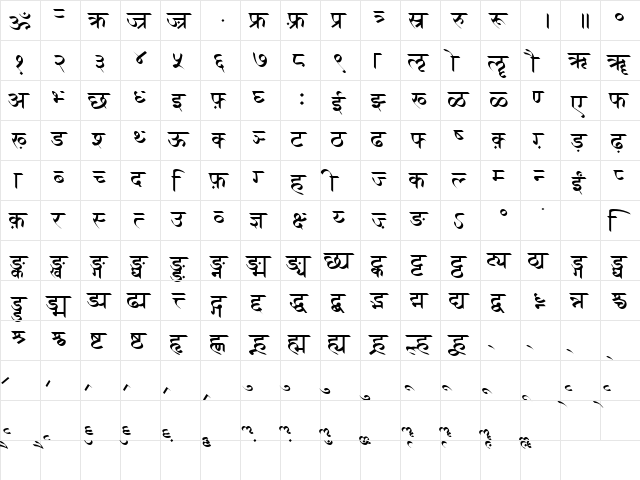
Xdvng Regular
Design Context for Xdvng Typeface
Xdvng takes a measured approach to typography — its balanced proportions and neutral character make it a reliable workhorse for both digital and print work.